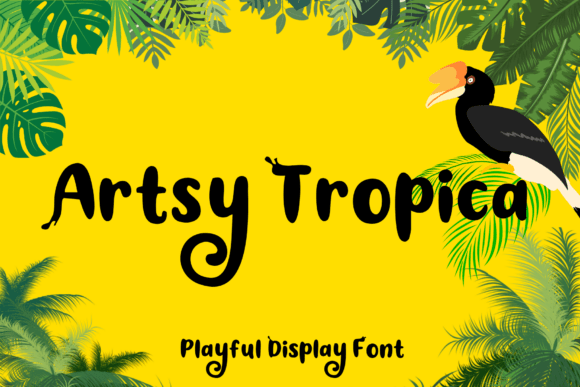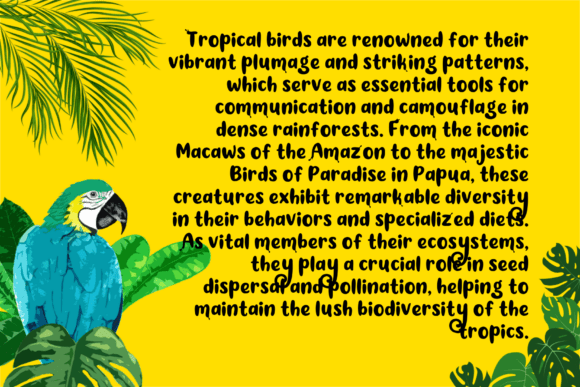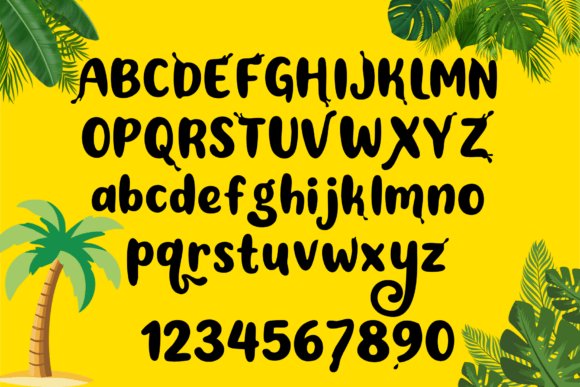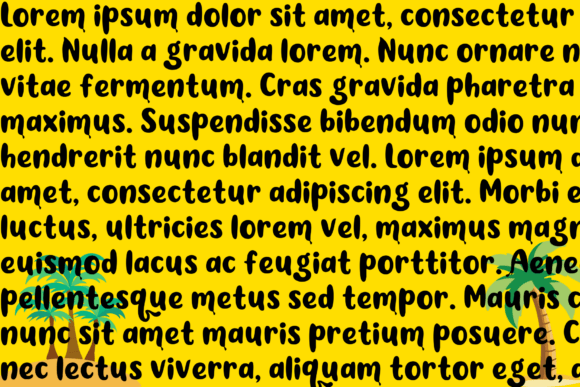
Getting Inspired in the Tropical Vibe
Remember that moment when you stumbled upon a hidden beach, surrounded by lush greenery and vibrant flowers? The warm sun on your skin, the sound of the waves, and the sweet scent of exotic flowers – it’s a feeling that’s hard to replicate, but with the right tools, you can bring a piece of that tropical magic to your creative projects. One such tool is the Artsy Tropica Font, a whimsical display font that’s as playful as it is charming.
With its unique blend of hand-lettering and organic motifs, the Artsy Tropica Font is perfect for designers who want to add a touch of personality and nature-inspired aesthetics to their work. From eco-friendly brands to tropical-themed projects, this font is a valuable addition to any designer’s toolkit. Its versatility and charm make it a must-have for creatives who want to stand out from the crowd.
Artsy Tropica Font Key Features
- Font Family: Artsy Tropica is a unique, hand-drawn font designed to evoke a sense of tropical elegance.
- Unique Characteristics: Features a distinctive blend of organic and geometric elements, creating a visually striking effect.
Artsy Tropica Font Review
Overall, I’m quite impressed with the Artsy Tropica Font. It’s a beautiful, hand-drawn font that’s perfect for any tropical or bohemian-themed project. ✨ The font’s unique, flowing design makes it stand out from other sans-serif fonts, and its versatility allows it to work well in a variety of contexts.
- ✨ Unique, hand-drawn design that adds a personal touch to any project
- ✨ Versatile and can be used in a variety of contexts, from logos to body text
- ✨ High-quality raster images that ensure crisp, clear text
- ⚠️ Limited character set, which may make it difficult to use for longer blocks of text
- ⚠️ Not ideal for projects that require a high level of precision or uniformity
- ⚠️ May not be suitable for projects that require a bold, attention-grabbing font
Overall, I would recommend the Artsy Tropica Font for projects that require a unique, hand-drawn look. While it may have some limitations, its beauty and versatility make it a great choice for designers looking to add some personality to their work.
Use Artsy Tropica Font for:
- Travel and adventure branding
- Summer and tropical-themed designs
- Food and beverage branding (e.g., ice cream, smoothies)
Remember to pair Artsy Tropica Font with complementary colors and imagery to create a cohesive and visually appealing design.